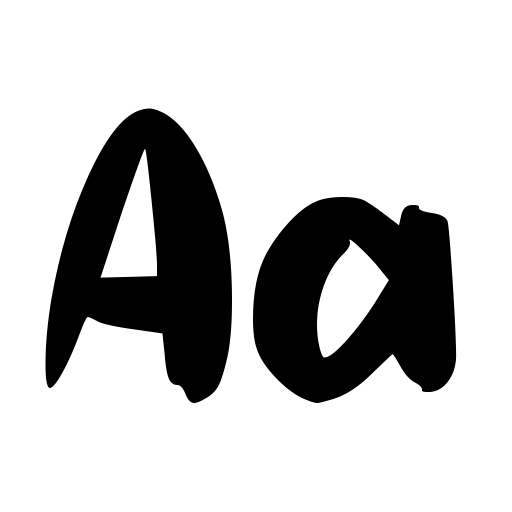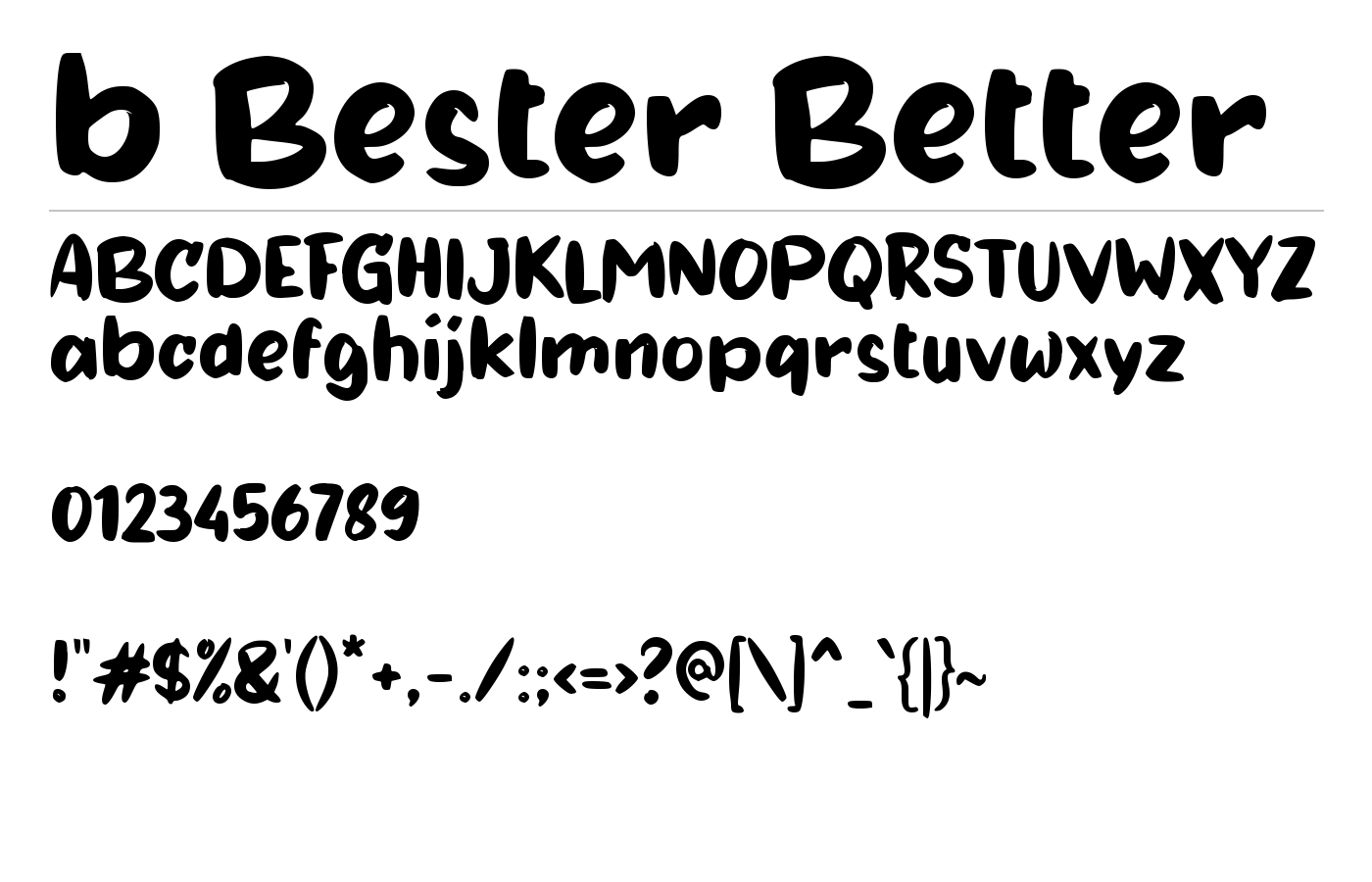
Bester Better is a bold, playful sans serif font with a hand-drawn feel, featuring rounded, irregular shapes that give it a lively and friendly personality. Its thick strokes, casual letterforms, and consistent weight make it ideal for informal, fun designs such as children’s books, greeting cards, or casual branding where an approachable and energetic vibe is desired. This font works well in headlines and logos that need to capture attention with a warm, human touch.
b Bester Better Font